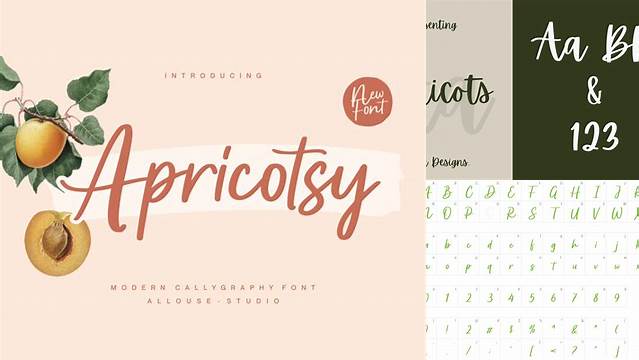
Hey guys! Ever been on the hunt for the perfect font to jazz up your designs? Well, look no further because we're diving headfirst into the world of the Apricots font, and the best part? You can snag a free TTF download! This article is your ultimate guide to everything Apricots: where to find it, how to use it, and some cool design ideas to get those creative juices flowing. Let's get started, shall we?
What is the Apricots Font?
First things first, what exactly is the Apricots font? Well, it's a beautifully crafted typeface that often gets described as having a touch of elegance and playfulness. Think of it as that perfect blend of sophistication and approachability, making it ideal for a wide range of projects. From branding and logos to website headers and social media graphics, Apricots can add a unique flair that really grabs attention. Many designers adore its versatility, the way it can subtly enhance a design without overpowering it. Its legibility is also worth noting; even in smaller sizes, Apricots maintains its clarity, ensuring your message gets across loud and clear. It generally features clean lines and balanced letterforms. So, whether you're aiming for a minimalist aesthetic or something a bit more decorative, Apricots is a great font to start with. Now, you might find variations of Apricots, such as Apricots Regular, which we'll be focusing on in this guide. This is usually the base font, and it's a fantastic starting point for your design explorations. It's this Apricots Regular style that is generally offered as a free TTF download, making it accessible for everyone, from seasoned professionals to enthusiastic hobbyists. Imagine the possibilities: designing eye-catching invitations, creating memorable marketing materials, or simply adding a touch of personality to your personal projects. With the free availability of Apricots Regular, the only limit is your imagination. The font's adaptability and wide range of applications make it a favorite amongst designers looking for a touch of character and flair. The Apricots font is a versatile typeface which has a unique style that can be applied for a wide range of purposes. The font's qualities make it appropriate for various tasks, ranging from developing visual identities to creating attractive graphic designs. The font is great for titles, headlines, and short passages of text. This allows you to easily highlight important text, convey key messages and make your designs appear more visually appealing. Therefore, the Apricots font is the perfect combination of style and functionality. So let's get into the fun part, where to download it!
How to Use the Apricots Font in Your Designs
Once you've got the Apricots font installed, it's time to start playing around with it! The beauty of this font is its versatility, so it really shines in a variety of applications. Here are some ideas to get you started, as well as some tips and tricks to help you make the most of this font.
Branding and Logos
- Creating a Brand Identity: Apricots can give your brand a unique and memorable look. Its blend of elegance and approachability makes it suitable for a wide range of businesses, from creative agencies to lifestyle brands. Experiment with different weights and sizes to find the perfect balance. A bold version of Apricots can command attention, while a lighter version can create a more subtle feel. Use it for your logo, your website, your business cards, and all aspects of your brand to create a consistent and impactful visual identity. Make sure to maintain consistency across all your brand communications. The right font can elevate your brand's visual presence and help it connect with your target audience.
Website Design
- Website Headers and Titles: Apricots works wonders for headings and titles on your website. Its eye-catching design immediately draws attention to your most important content. It can instantly improve the aesthetic appeal of your website. Pair it with a complementary font for body text to create a harmonious and readable layout. Experiment with color and size to make your headers pop and reflect your brand's style. The contrast with your body font is important, so make sure that they work well together to keep a good flow. The font choice can establish a positive user experience and encourage visitors to explore your website.
Social Media Graphics
- Eye-Catching Social Media Posts: Using the Apricots font on social media graphics can significantly improve your engagement. Create visually appealing posts that grab attention and reflect your brand personality. Design posts with quotes, announcements, or promotional content. Use the font to highlight key messages and increase the overall impact. Create graphics that are in sync with your brand aesthetic. It can help your content stand out in crowded social media feeds. Ensure that your text is readable and easy to understand. Keep your messaging concise, and use the font to reinforce your brand identity. Try out different combinations of the font in your social media graphics and assess their performance.
Print Materials
- Invitations, Posters, and Flyers: This font is ideal for making attractive invitations, posters, and flyers. The font's readability, even in bigger sizes, ensures your message is clear and impactful. Use it for events, promotions, or any other print media. It also brings a sense of flair. Combining Apricots with high-quality visuals and a well-organized design can greatly enhance the effectiveness of your print materials. When designing these materials, consider the target audience and the message you want to convey. A well-designed print piece can establish your brand's influence. Make sure that the font complements the other elements in the design. The visual harmony is key for your print materials.
Tips and Tricks for Best Results
Pairing the Apricots Font: The choice of your font pairing is crucial. Try combining it with sans-serif fonts such as Open Sans or Lato for body text. This combination creates a good balance between style and readability. Another great choice would be a classic serif font like Times New Roman. Experiment with different font weights and sizes to ensure that the pairing is visually appealing. Use the font pairing to emphasize specific elements. Consider the overall mood you want to create and choose fonts that reflect that. Ensure the two fonts complement each other and provide a readable design.
Color and Background: Make sure that your color palette enhances the legibility of the Apricots font. Dark text on a light background is always a good approach, but you can also experiment with white text on dark backgrounds. Make sure the color contrast is high enough to provide great readability. The chosen colors should also complement your brand's color scheme. Consider how your color palette will influence the message you are trying to communicate. Test out different color combinations to see which ones best capture your project's tone and style. The color choice can significantly influence the impact of your design, so choosing the right colors is key.
Conclusion: Unleash Your Creativity with the Apricots Font!
There you have it, folks! Everything you need to know about the Apricots font and how to download it for free. Remember, it's a fantastic font that can add a touch of flair to any design project. From personal projects to professional endeavors, Apricots Regular can help bring your ideas to life. Whether you're creating a logo, a website header, or a social media graphic, this font can make your work truly unique. With its availability as a free TTF download, there's no reason not to give it a try! Always remember to download fonts from reliable sources and to double-check the license before using them. With a little bit of creativity and attention to detail, the possibilities are endless. So go forth, create, and have fun! Happy designing!